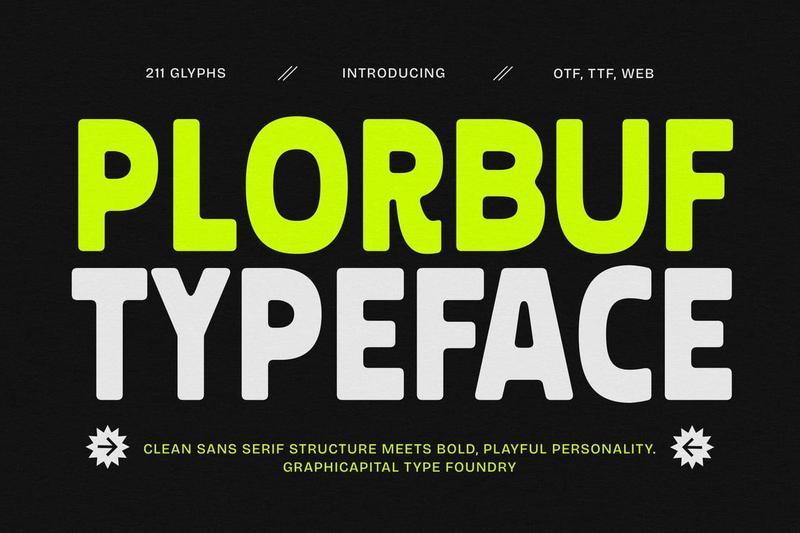
Plorbuf is a sans-serif display font with bold, semi-hand-drawn letterforms that convey a playful and energetic personality. Great for posters, headlines, branding, and other designs that want to stand out with a bold, fun touch.
Ideal for branding, posters, headlines, packaging, album art, game visuals, and promotional designs. It adds personality to any creative project and helps your message stand out effortlessly.
by **Graphicapital**